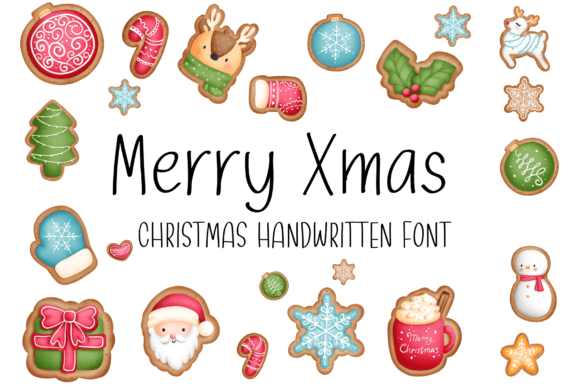
Introducing Merry Xmas Font, the perfect script font for all your creative needs! Created by Digital Creative Art, this delightful handwritten font is here to add a touch of sweetness and friendliness to your designs.
With its charming and playful vibe, Merry Xmas Font is the ideal choice for a wide range of projects. Whether you're working on crafts, digital designs, presentations, or even writing wedding invitations and cards, this font will bring a fun and whimsical touch that is sure to captivate your audience.
Imagine the joy and excitement that this font will bring to your holiday-themed designs. It's like having your very own Santa's helper, spreading cheer and happiness with every stroke of the pen. Embrace the festive spirit and let Merry Xmas Font be your creative companion this season.
Not only does Merry Xmas Font add a delightful aesthetic to your designs, but it also ensures a seamless reading experience. The carefully crafted script style ensures that every letter flows effortlessly, creating a visually pleasing and legible text.